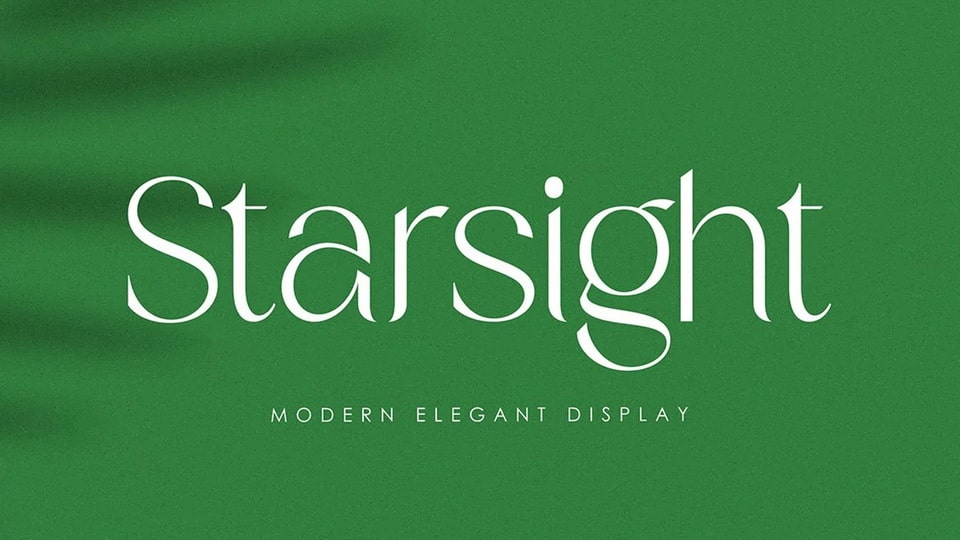
Download Starsight font, a very versatile typeface that showcases elegance and charm in every character. With its seamless shapes and modern features it will cover a wide range of design projects from greeting cards to magazines, wedding invitations, websites, etc.